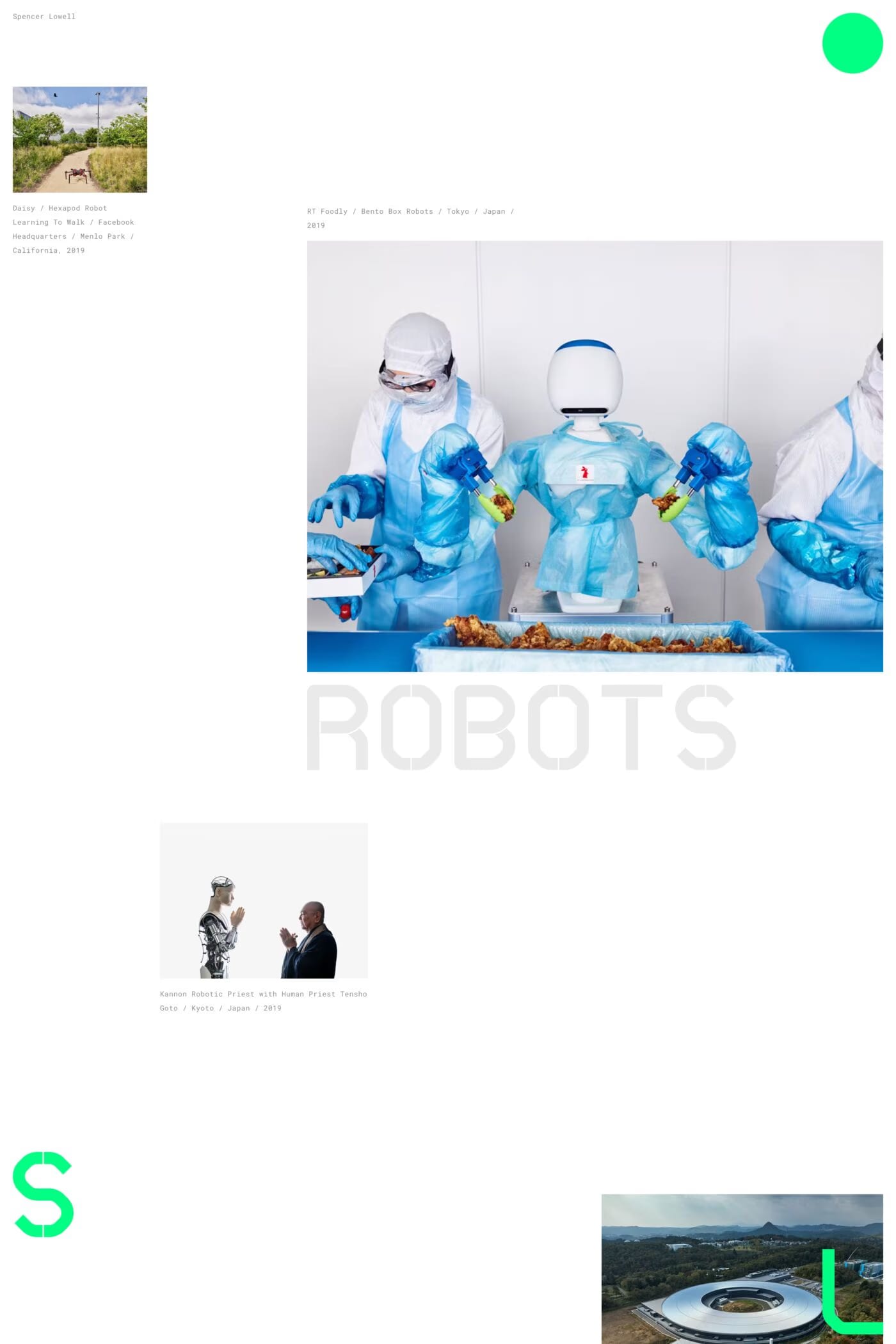
LD_SPENCER_LOWELL is a unique custom stencil type explicitly used throughout Spencer Lowell’s site. The type choices and structured grid system all help reflect the scientific approach to Spencer’s photography.